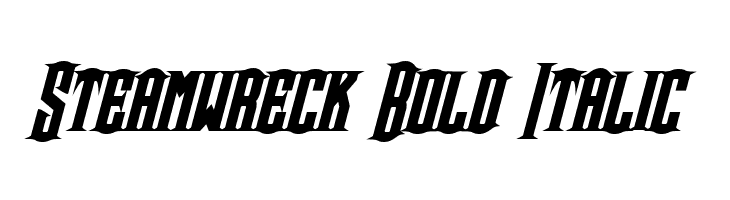
A charming and elegant script font with flowing, cursive letterforms.
A sleek, modern, thin oblique font with a futuristic aesthetic.
A bold, geometric 3D font with a futuristic and dynamic style.
A bold, runic-style font with a rugged, ancient appearance.
A bold, italicized font with high contrast and dynamic slanted characters.
A futuristic, geometric, and condensed font with angular shapes.
A modern, geometric font with clean lines and uniform strokes.
A sleek, modern italic font with bold, angular characters and a dynamic style.
A modern, geometric font with tall, narrow characters and consistent stroke width.